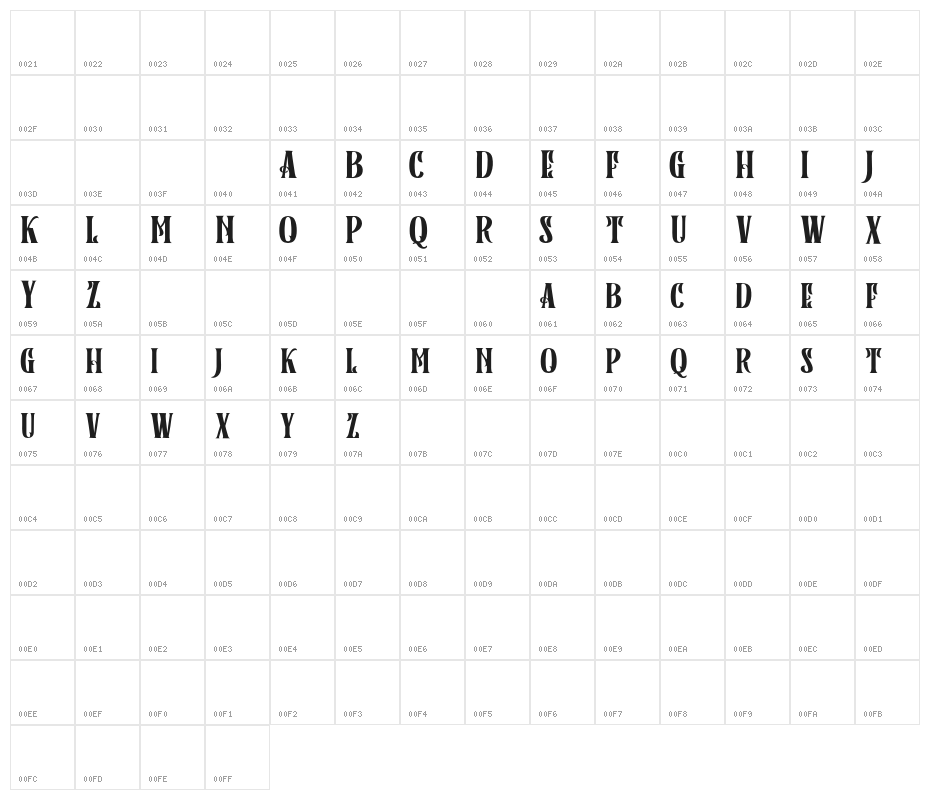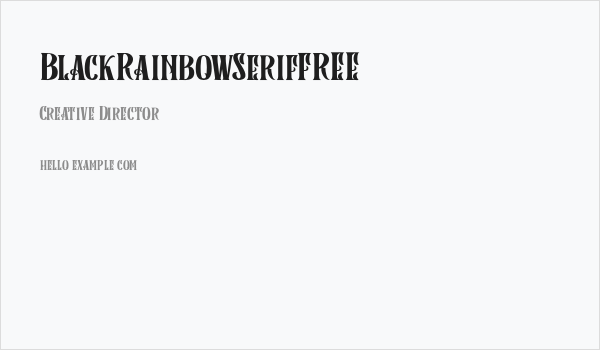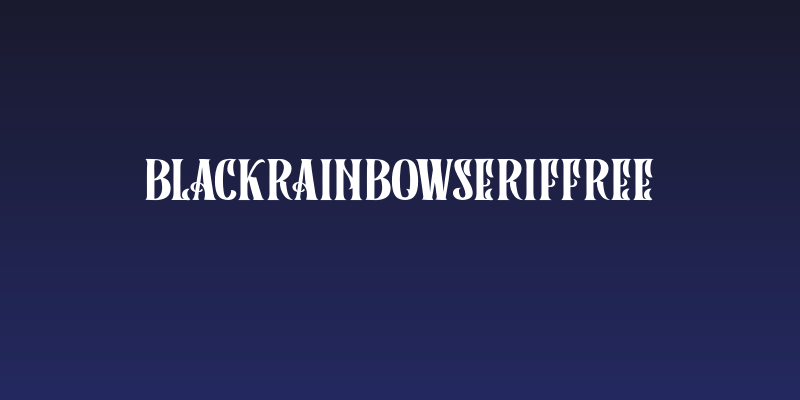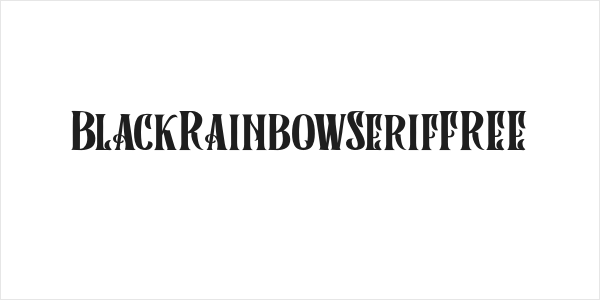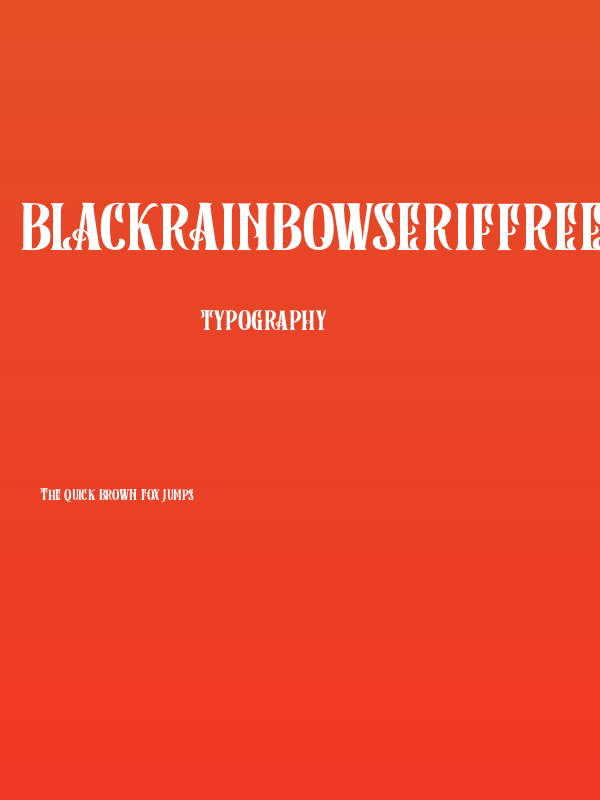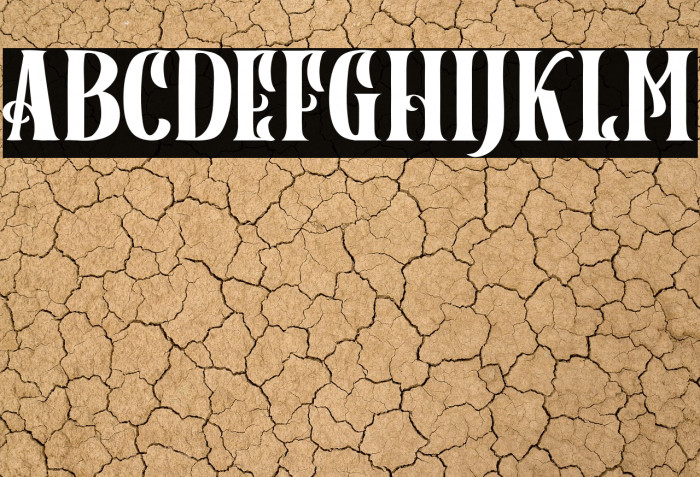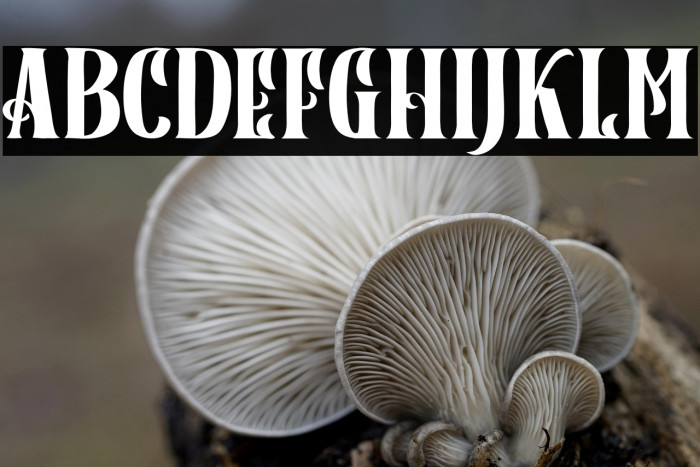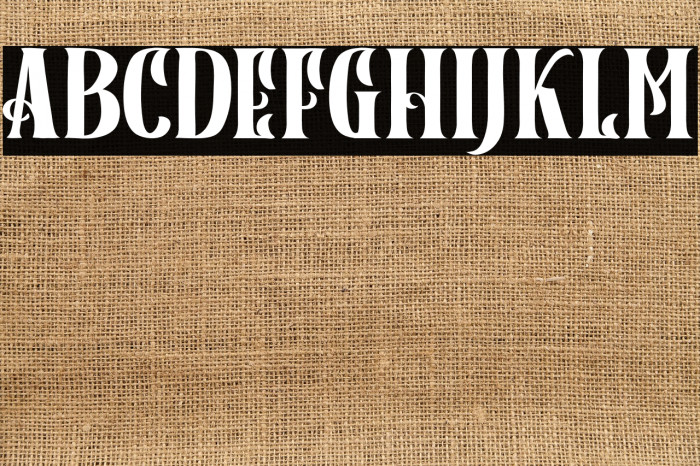
BlackRainbowSerifFREE Font
BlackRainbowSerifFREE Description
This font features a bold and dramatic style with high contrast between thick and thin strokes. The characters exhibit a unique flair with decorative elements, particularly noticeable in the serifs and curves. The uppercase letters are striking and command attention, making them ideal for impactful designs. The overall aesthetic is both vintage and modern, blending traditional serif elements with contemporary design. The font's distinct personality makes it suitable for creative projects that require a strong visual presence.
| Overall Style | Vintage, Modern |
| Proposed Projects | Ideal for branding, poster design, book covers, and any project needing a bold, artistic touch. |